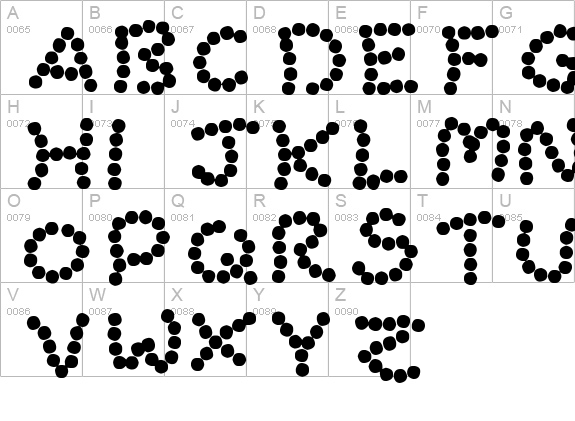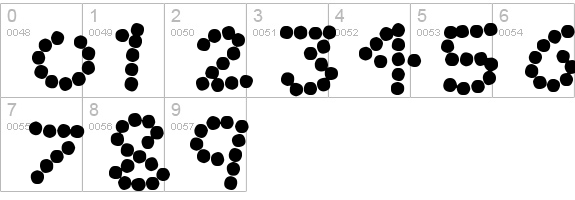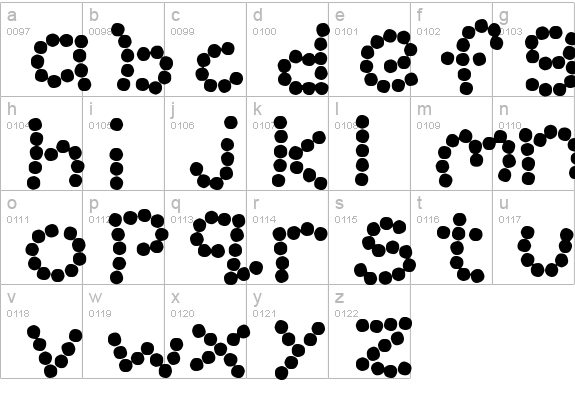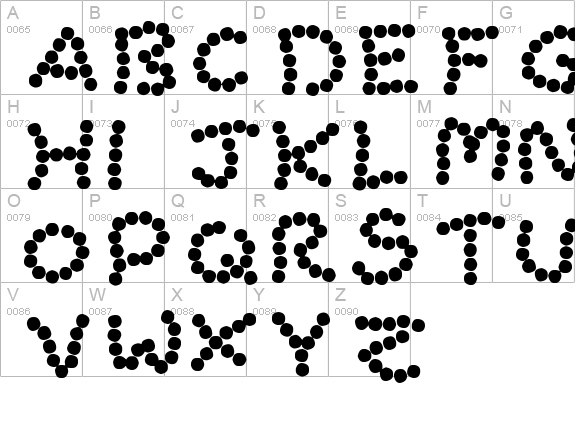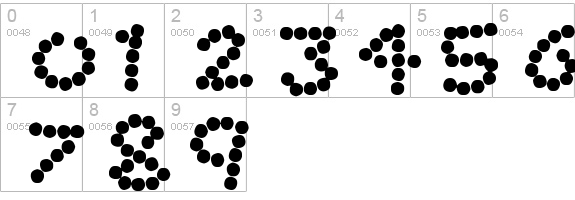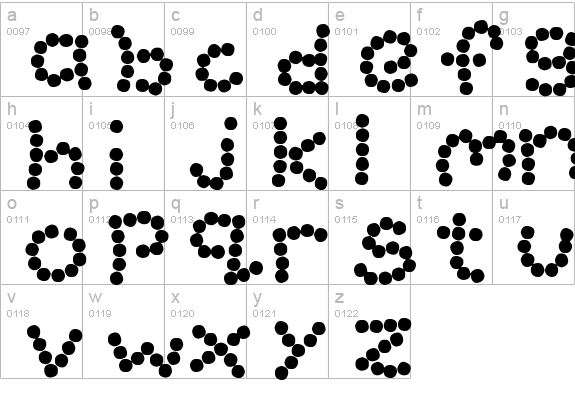
Bead Necklace Font Details
The Bead Necklace font is a charming and whimsical typeface that exudes a sense of playfulness and creativity. Its intricate design mimics the look of a string of delicate beads, adding a unique and eye-catching touch to any project. Whether you're designing invitations, greeting cards, or digital art, this font is sure to make a statement and capture attention.